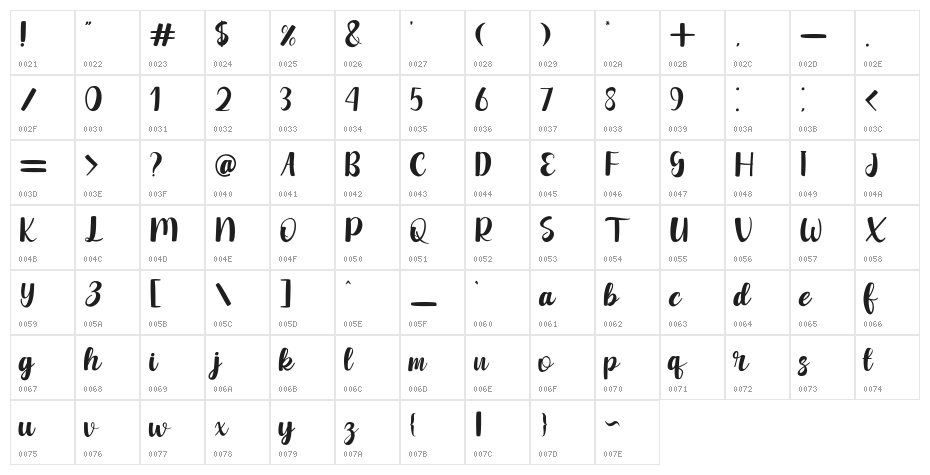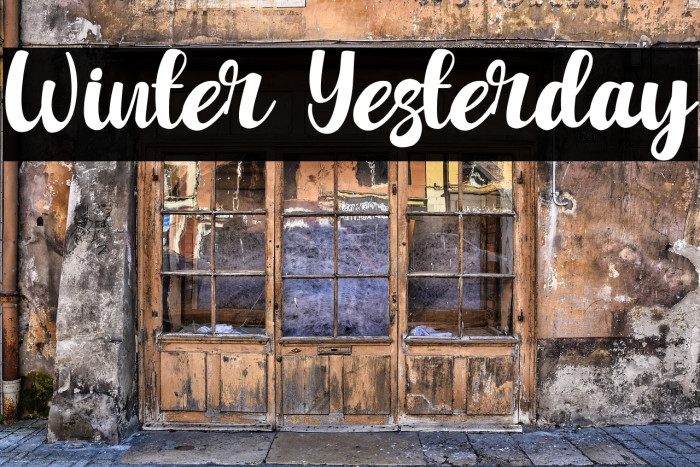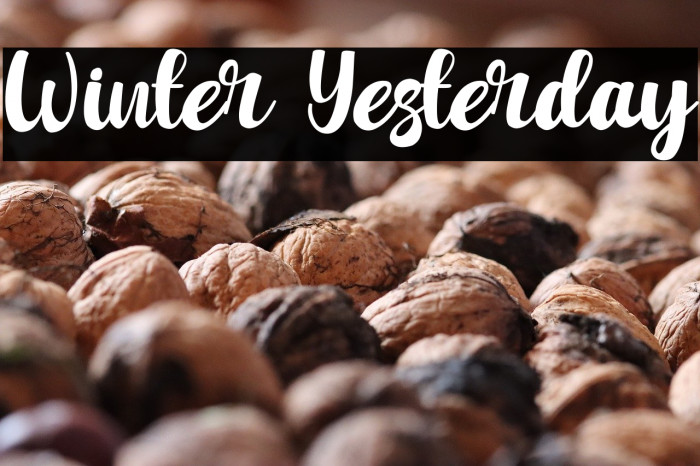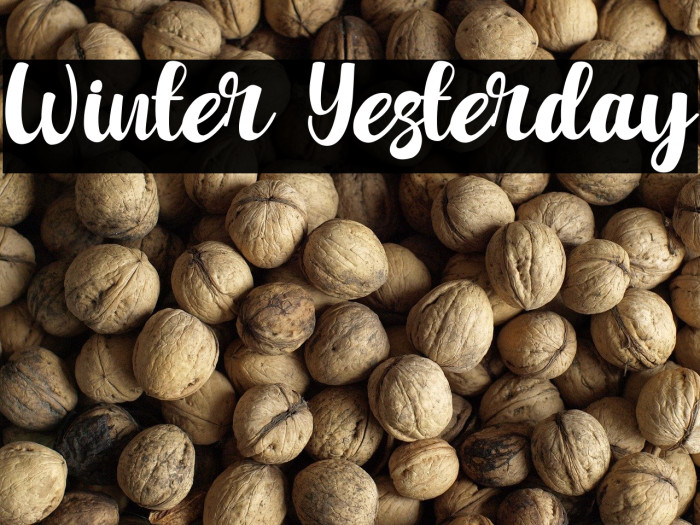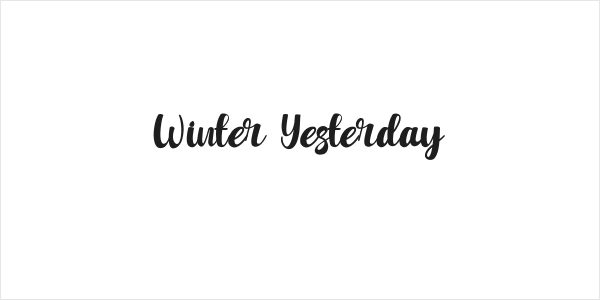
Winter Yesterday Font
Winter Yesterday Description
This font features a playful and dynamic script style with a modern twist. The characters are bold and fluid, with a hand-drawn appearance that adds a personal touch. The uppercase letters are slightly more structured, while the lowercase letters exhibit a more free-flowing, cursive style. The numerals and special characters maintain the same lively aesthetic, making them cohesive with the alphabet. The font's overall appearance is both friendly and stylish, suitable for a variety of creative applications.
| Proposed Projects | Ideal for greeting cards, invitations, branding, and social media graphics. |